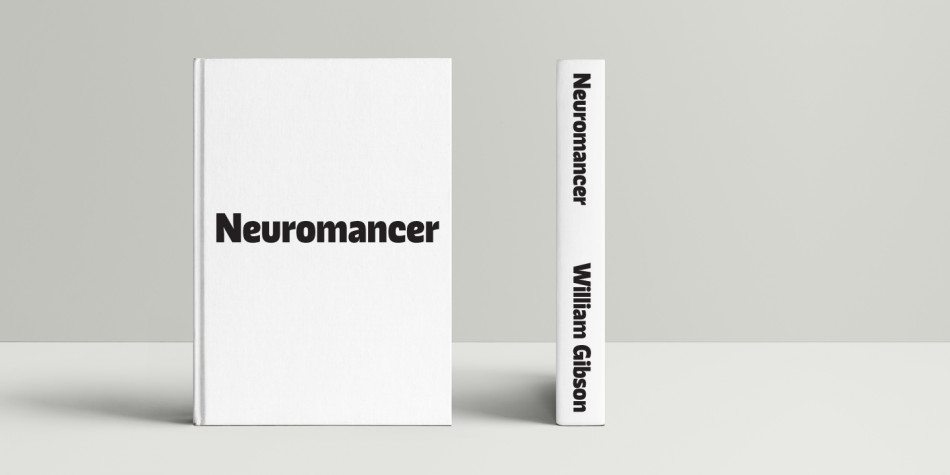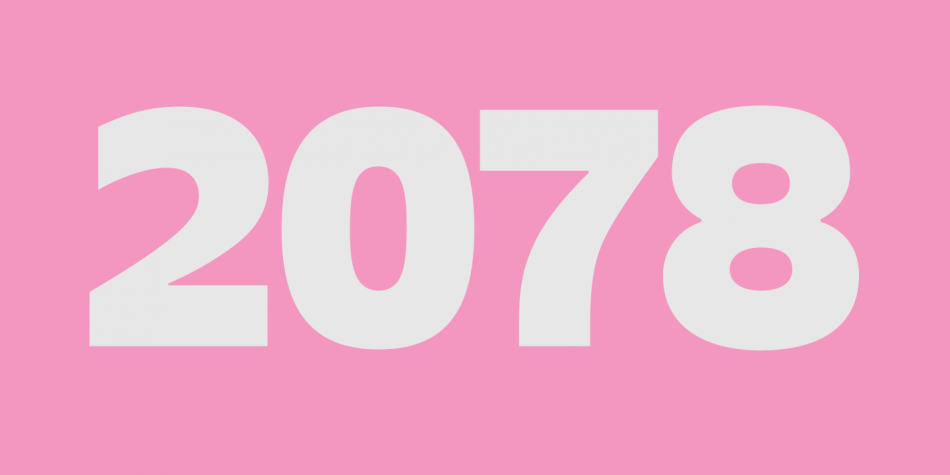
| Designed by Dave Rowland, Galix is a sans serif font published by Schizotype Fonts. |
In a world where every new release is a thousand font megafamily, it is a particularly (extra)bold move to release a single weight display style.
Perhaps. Galix is a super-elliptical, technical sans; futuristic while avoiding the retro appearance so often associated with this genre.
It is a font intended for the covers of science fiction novels. You could use it for other things, I suppose. But back to the single style thing… It’s my humble opinion that large type families, especially those “font suites” that are so de rigueur, lead to a staleness in design, where things all start to look a bit samey and the fine art of type pairing is dying.
So license Galix, see how it works on its own, paired with contrasting fonts, distorted and experimented with by you, the designer.
It might just be the lack of versatility you need to focus your design work! But if not, chances are I will extend the family to a range of weights, and should that happen, any updates will be free to early adopters.
So go on, give it a try and (extra)boldly go where—you get the idea.